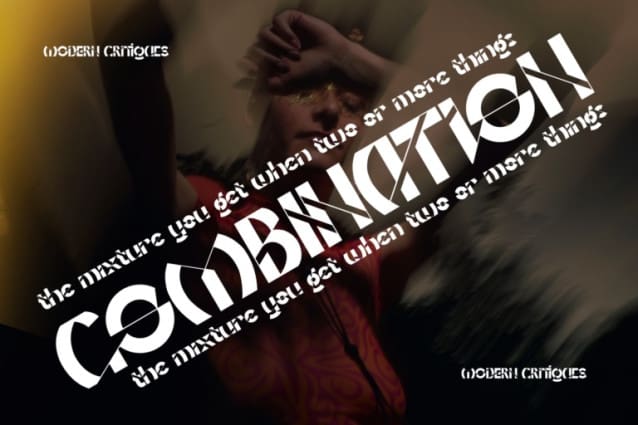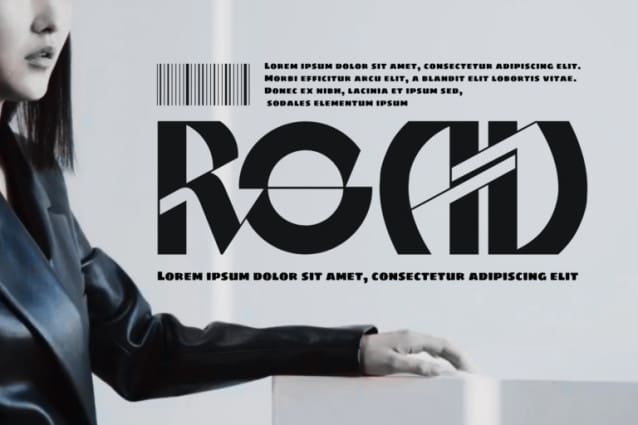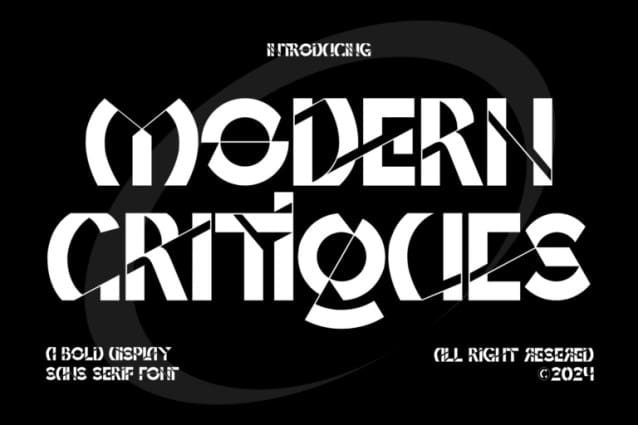
Modern Critiques Font
Modern Critiques Font combines futuristic and experimental styles into a unique form. This font was created with versatility in mind, making it ideal for a range of applications from digital media to print. Its bold characters and sleek lines make it suitable for businesses aiming to create a strong and memorable brand presence. It’s the go-to choice for those who want to merge modern aesthetics with corporate professionalism.
Modern Critiques Font was built with OpenType features and includes 100 ligatures, alternate, numbers, punctuation, and it also supports other languages.
AC AD AL AN AR AS AT AU AV BE CA CE CH CO CT DE DI EA EC ED EE EL EM EN EP ER ES ET FE FO FR GE HA HE HI HO IE IC IL IN IO IR IS IT JU KE LA LE LI LL LO LY MA ME MI NC ND NE NG NO NT NS OC OF OM ON OO OP OR OT OU OW PA PR RA RD RE RI RO RS RT SE SH SI SO SS ST TA TE TH TI TO TR TT UM UN UR VE WI WO